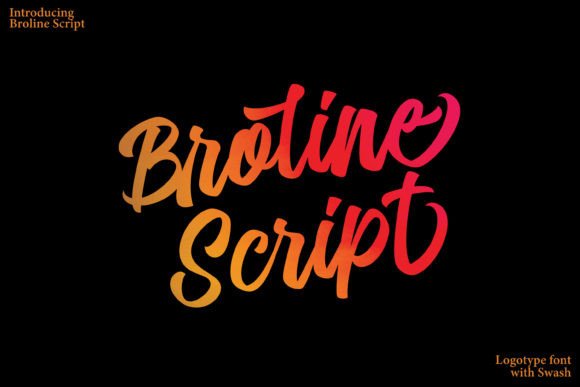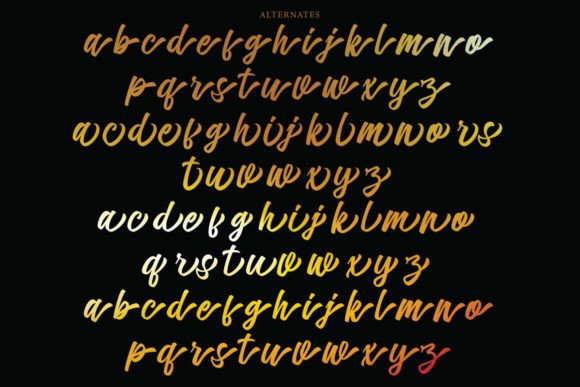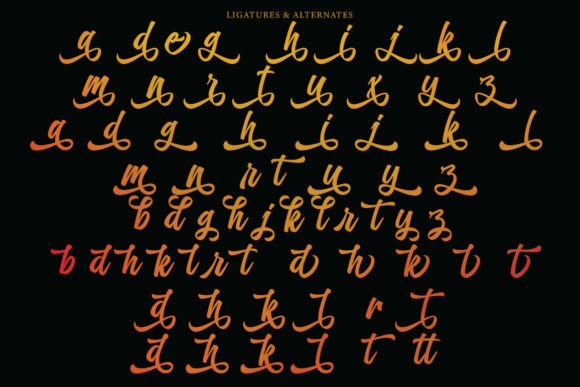
About Broline Script
Broline Script feels equally charming and elegant. It looks stunning on wedding invitations, thank you cards, quotes, greeting cards, logos, business cards, and every other design which needs a handwritten touch. This font is PUA encoded which means you can access all the glyphs and ligatures with ease!